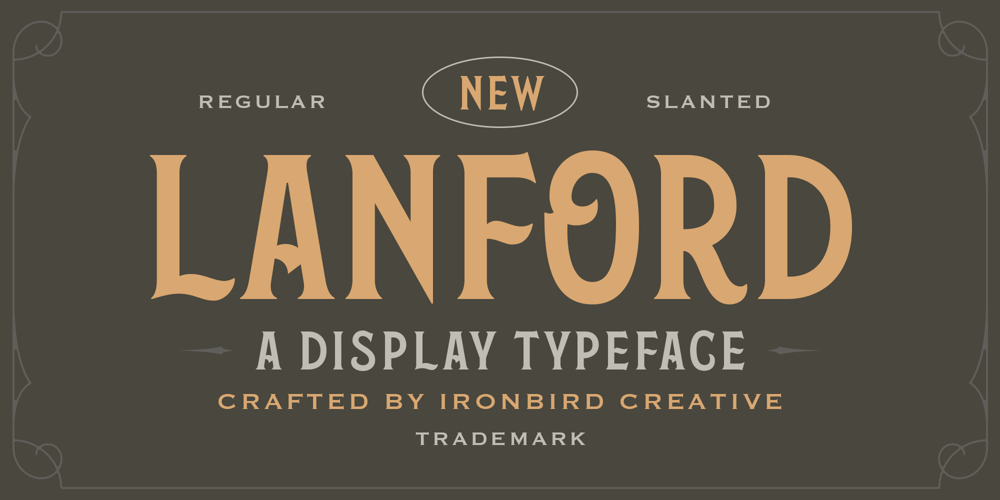
Lanford Font Family was designed by Septianto Nugroho and published by Ironbird Creative. Lanford contains 2 styles and family package options. Lanford is a powerful display typeface inspired by vintage type with carefully crafted. This typefaces is perfect for people looking for vintage aesthetic. Feature : Uppercase Lowercase Numerals & Punctuations Multilingual If you have any questions, please contact (ironbirdcreative@gmail.com)